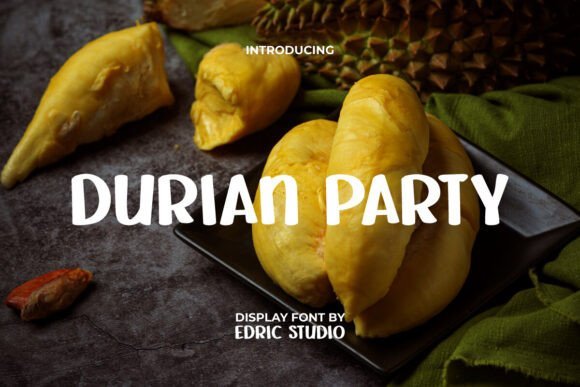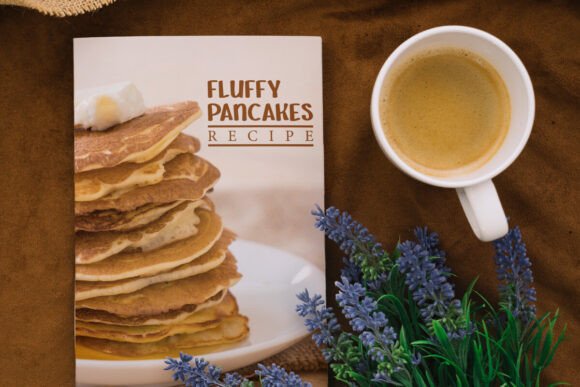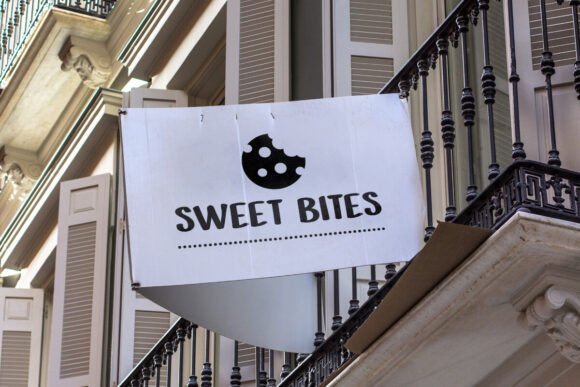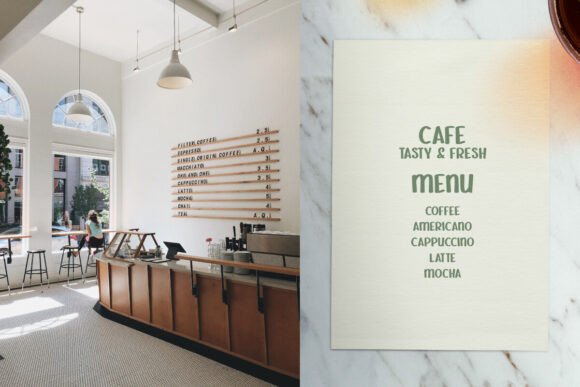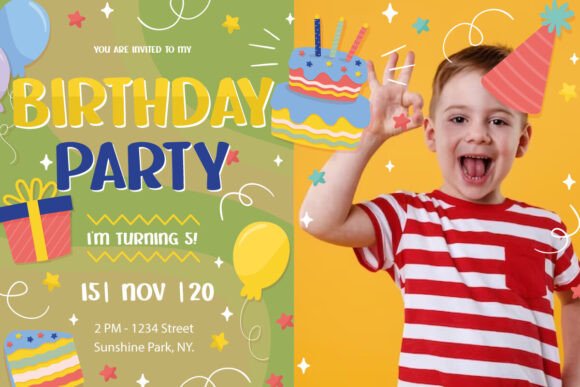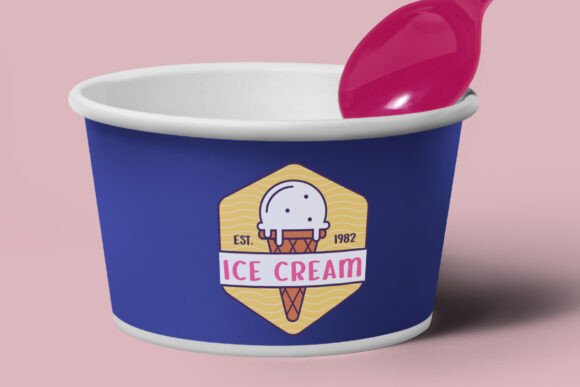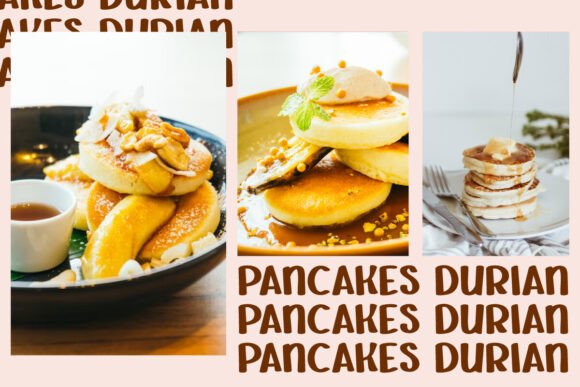
Get Ready to Party with the Ultimate Foody Font!
Have you ever found yourself in a creative jam, staring at a blank screen, and desperately needing a spark to bring your design to life? That’s exactly what happened to me when I stumbled upon the adorable Durian Party Font – a font so delightful, it instantly transformed my design woes into a fun-filled experience.
This charming font, inspired by the infamous King Fruit, is a perfect blend of playfulness and professionalism. With its thick lines and short strokes, Durian Party Font exudes a lively impression that’s sure to captivate your audience. Whether you’re a seasoned designer or a creative enthusiast, this font is an absolute gem that will elevate your designs to the next level.
Durian Party Font Key Features
- Unique Characteristics: Durian Party Font features a bold, playful, and eye-catching design, with unique letterforms and ornaments that add a touch of whimsy to any text.
- Font Weight: The font is available in a single weight, but its bold and playful design makes it suitable for use in headings, titles, and other prominent text elements.
Designer Review: Durian Party Font
Overall, I think the Durian Party Font is a fun and quirky addition to any design project. ✨ The bold and playful style is reminiscent of tropical getaways and summer vibes. It’s perfect for use in social media graphics, advertisements, and even wedding invitations.
- ✨ Unique and recognizable design: The Durian Party Font has a distinct look that will help your design stand out from the crowd.
- ✨ Wide language support: This font includes support for a wide range of languages, making it a great choice for international designs.
- ✨ High-resolution images: The font’s high-resolution images ensure that it looks great even in large sizes.
However, there are a few limitations to keep in mind: ⚠️
- ⚠️ Limited font weights: The Durian Party Font is primarily designed as a bold font, which may limit its use in certain design applications.
- ⚠️ Not ideal for body text: Due to its bold and playful style, this font may not be the best choice for large blocks of body text.
Overall, I think the Durian Party Font is a great choice for designers looking to add some personality to their projects. While it may have some limitations, its unique style and wide language support make it a valuable addition to any design library.
To get the most out of the Durian Party Font, use it for bold, eye-catching headlines and titles. It’s also great for creating a playful and energetic atmosphere in designs.
Common use cases include party invitations, social media graphics, and event marketing materials.